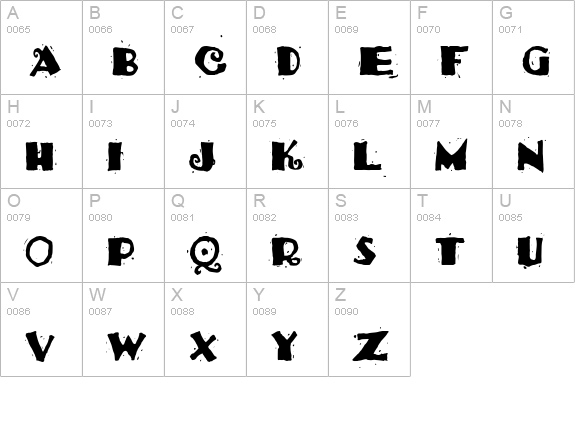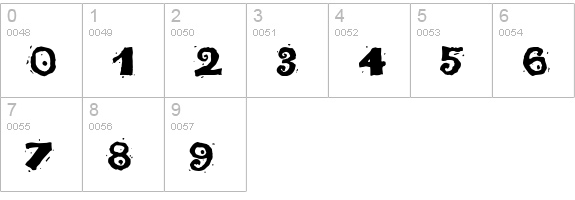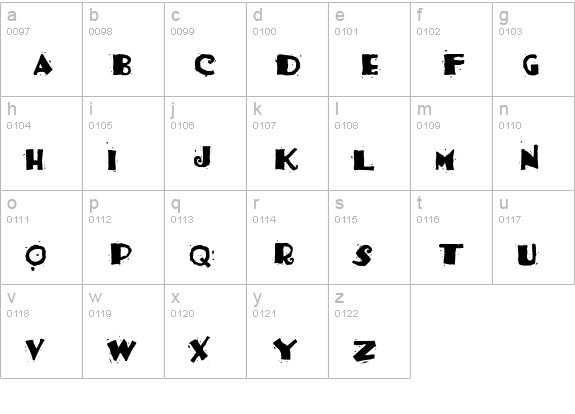
Taco Salad Font Details
Introducing Taco Salad font, a delightful and versatile typeface that will add a touch of flavor to any design project. This font is the perfect blend of boldness and playfulness, making it suitable for a wide range of applications. With its unique and eye-catching letterforms, Taco Salad font brings a fresh and fun twist to any design. Whether you're creating a logo, designing a poster, or crafting a social media graphic, this font will make your text pop and stand out from the crowd. But what makes Taco Salad font even more amazing is that it is free! Yes, you heard it right. This fantastic font is freely available to download at FontsMarket.com, making it accessible to designers of all levels. Now you can add a touch of creativity to your projects without breaking the bank. The versatility of Taco Salad font is unmatched. It can be used in both digital and print designs, ensuring that your message is conveyed clearly and effectively across different mediums. Its quirky yet legible letterforms make it easy to read, while its unique personality adds a touch of personality to any design. So why wait? Download Taco Salad font today and give your designs a burst of flavor and creativity. With its free availability at FontsMarket.com, you can start experimenting and creating stunning visuals without any limitations. Add a dash of excitement to your typography and let Taco Salad font be your secret ingredient for design success.